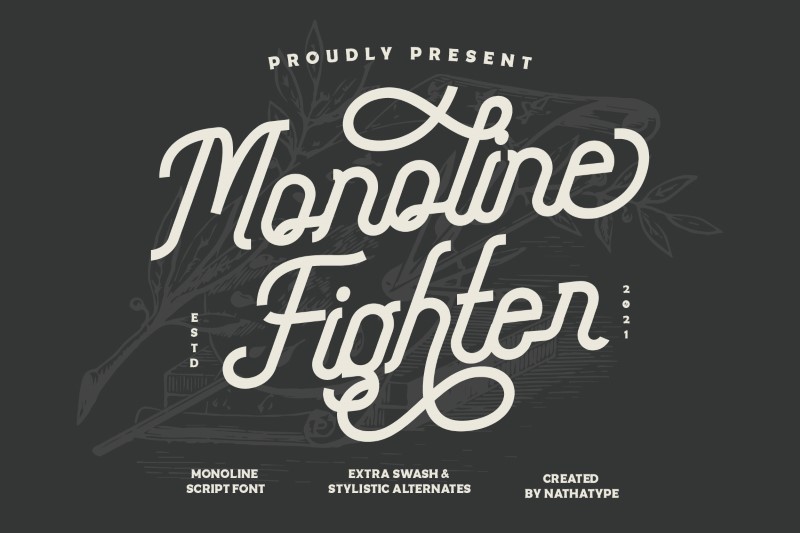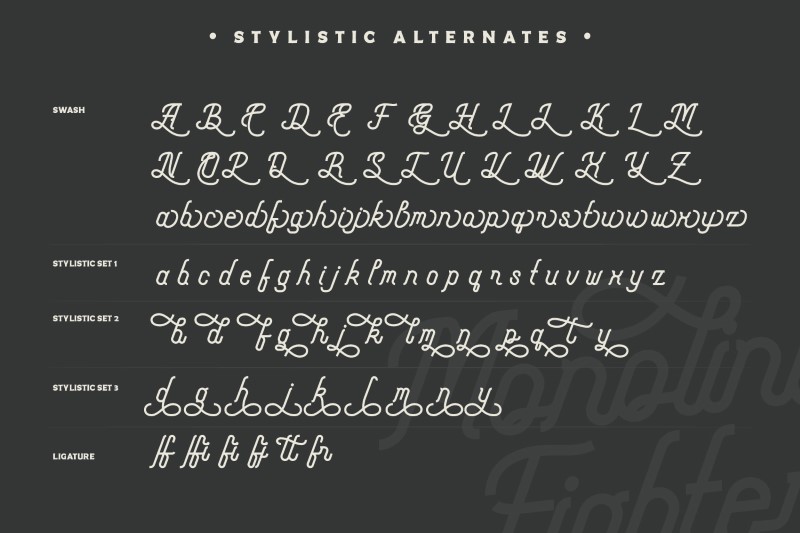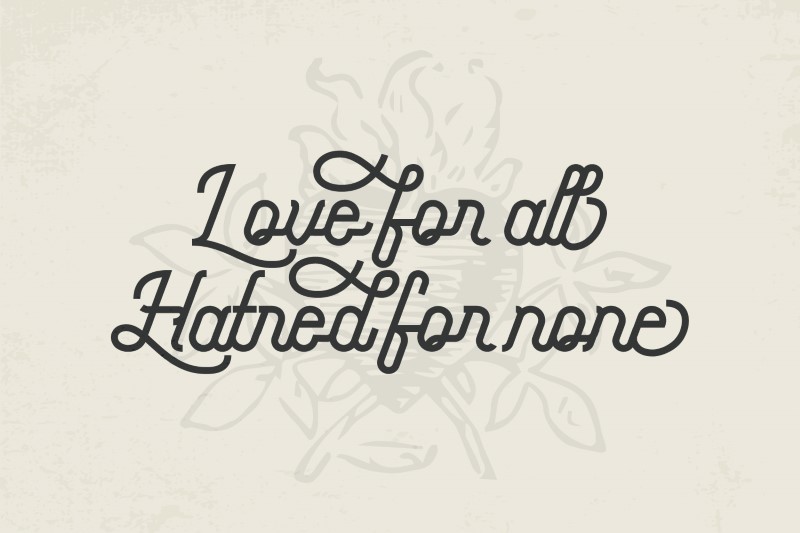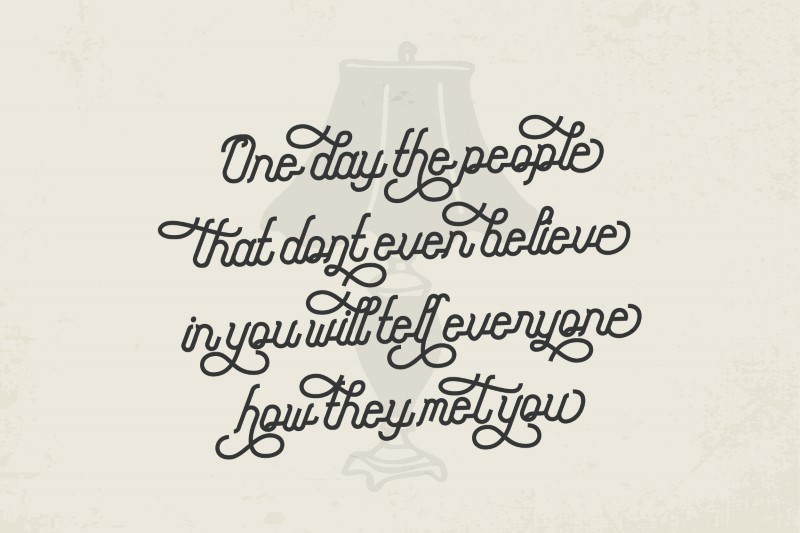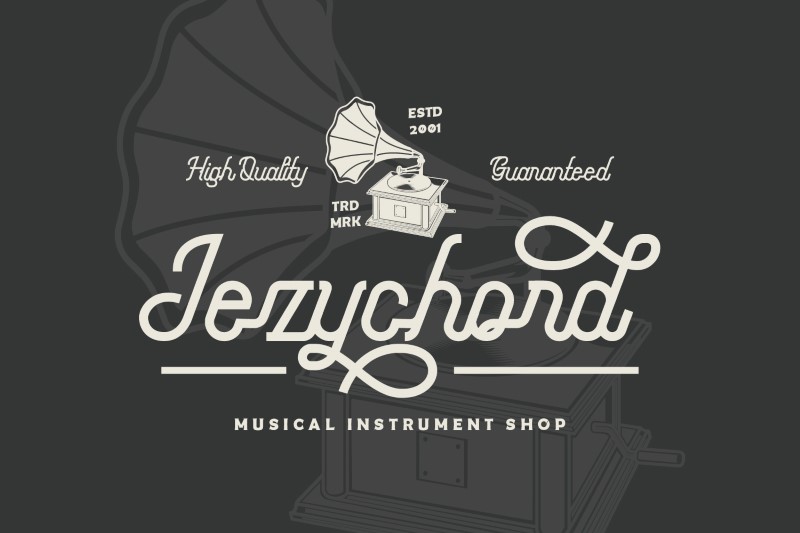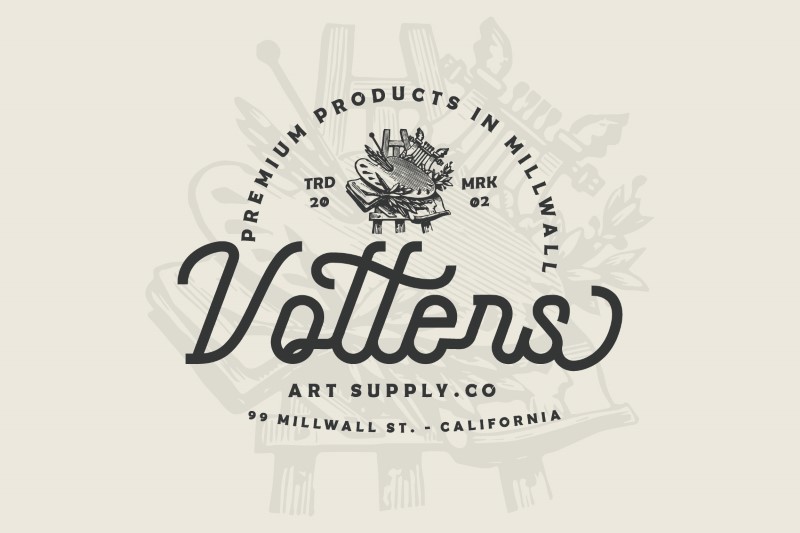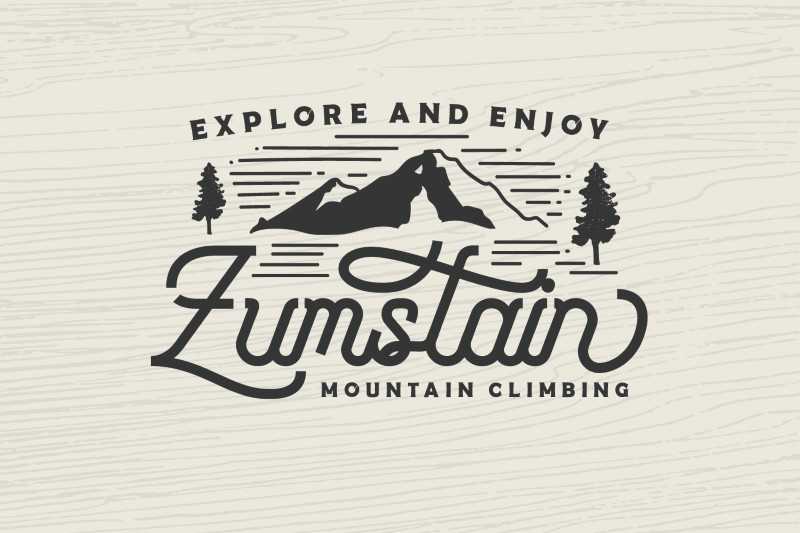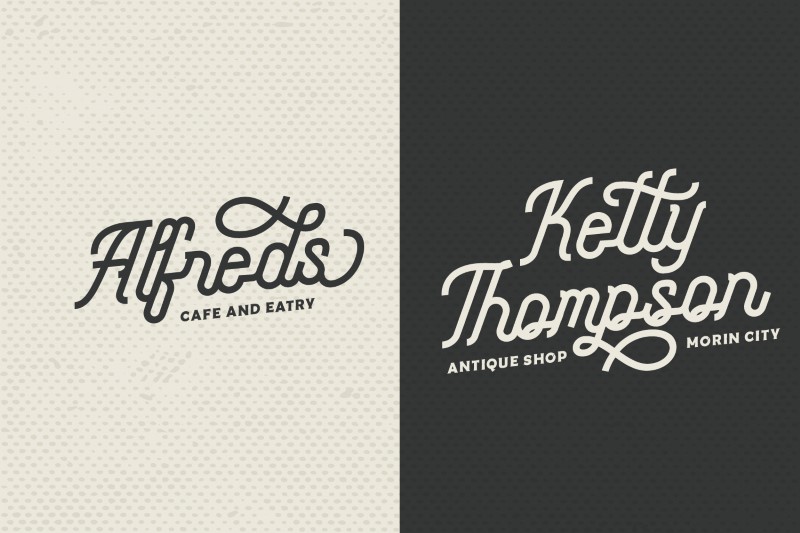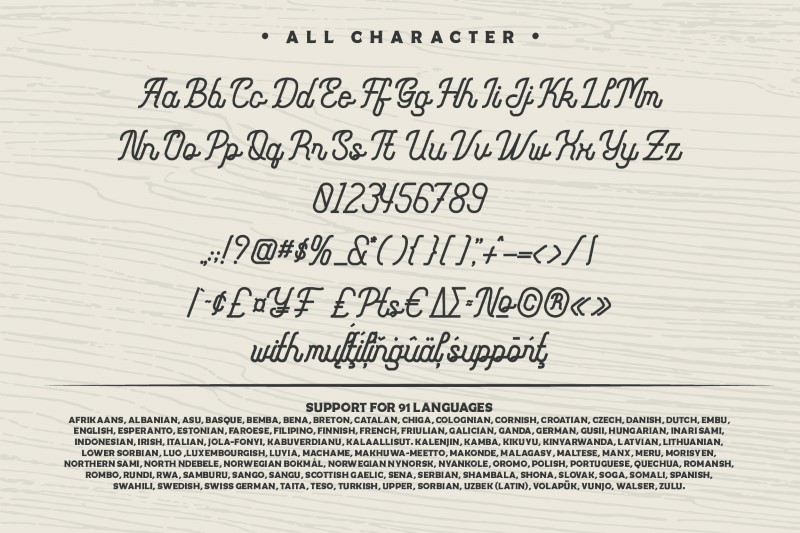
Are you ready to enhance your branding? Are you looking for a statement font that exudes prominence, style, and adventure? The thing is you only need to change one element to engage your clients. Please welcome the Monoline Fighter.
The font was fully thought out to easily meld inside your designs. An excellent choice to add the right amount of elegance yet vintage. This custom font was specifically designed to fit in whatever you need! It is perfect for social media posts and ads, printed quotes, t-shirt designs, packaging, and a modern text overlaying any background images.
Features include:
- Stylish Sets
- Swashes